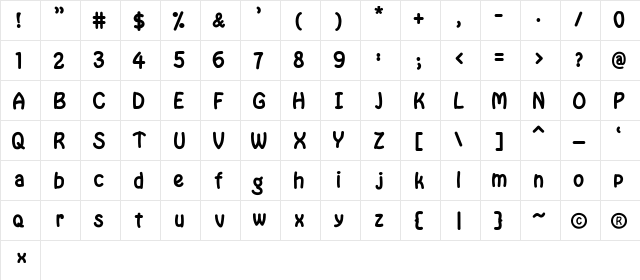
Sandspit Regular
| Designer | Lambert Wahang |
Design Context for Sandspit Typeface
Sandspit offers clean, dependable letterforms without strong stylistic allegiance, making it a practical choice for designers who need flexibility.